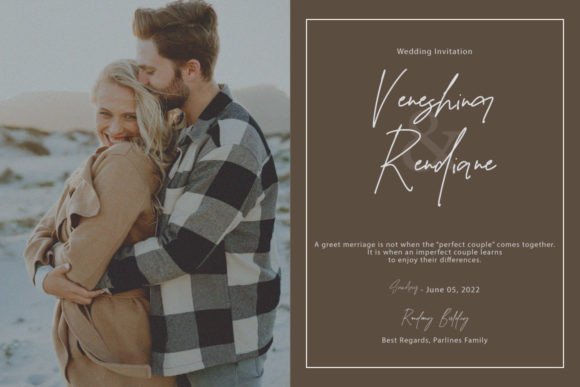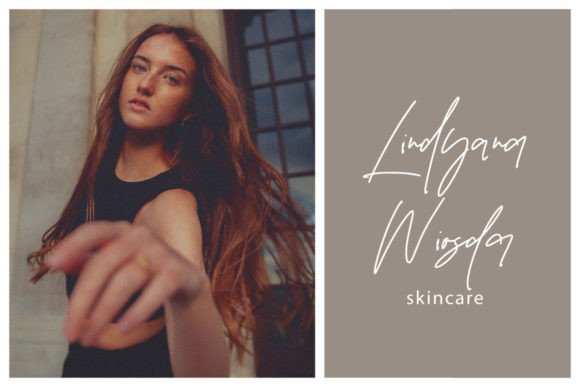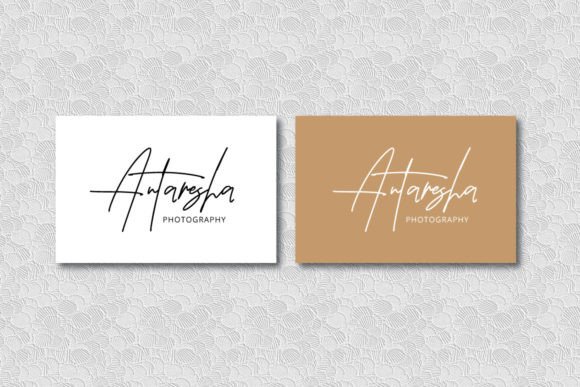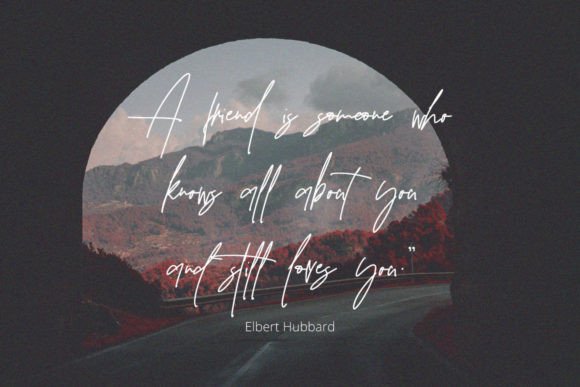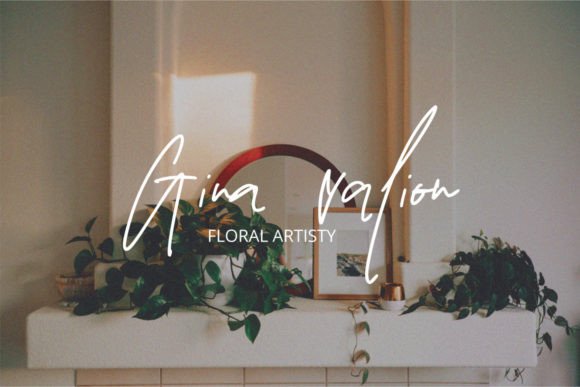
Introduction to Ridgent Font
Have you ever stared at a blank canvas, feeling the pressure to create something truly extraordinary? The blank page can be intimidating, but the right design resource can make all the difference. That’s where the Ridgent Font comes in – a game-changing addition to any creative project.
This exclusive handwritten font is the epitome of elegance, with refined strokes and sophisticated details that exude luxury. Whether you’re working on a high-end branding project, designing an invitation, or seeking the perfect touch for your next design venture, Ridgent Font is the perfect companion. With its PUA encoding, you can access all glyphs and swashes effortlessly, giving you the freedom to get creative and experiment with different styles.
Key Features of Ridgent Font
- High-quality design: Ridgent Font offers crisp and clear typography perfect for creative projects.
- Transparent background: This feature makes Ridgent Font a versatile design resource for various applications.
- Resolution and size: Ridgent Font supports a wide range of resolutions and sizes, ensuring it looks great on various devices and mediums.
- Unique characteristics: Ridgent Font features a distinctive and modern design, ideal for creative projects that require a touch of sophistication.
- Perfect for design projects: Ridgent Font is an excellent design resource for graphic designers, artists, and creatives working on various projects, from branding to advertising.
Honest Review: Ridgent Font
I recently had the chance to work with the Ridgent Font, and I must say it’s a high-quality addition to any design project. One of the standout features of this font is its transparent background, which makes it super versatile and easy to use. ✨
The Ridgent Font is perfect for creative projects where you need a clean and modern aesthetic. It’s also a great design resource for those who want to create professional-looking materials without breaking the bank – it’s free to download, which is a huge plus in my book!
Here are some of the things that work well with the Ridgent Font:
- High-quality design: The font is crisp and clear, making it perfect for both print and digital projects.
- Transparent background: This feature allows you to use the font on any background without worrying about it getting lost.
One thing to keep in mind is that the Ridgent Font might not be the best choice for projects that require a lot of customization. The font is a bit limited in terms of its style and flexibility, so you might find yourself wishing for more options. ⚠️
Overall, I’m really impressed with the Ridgent Font. It’s a solid choice for any design project, and its free download option makes it a no-brainer for anyone looking to add some high-quality typography to their work.
Tips for Getting the Most Out of Ridgent Font
For the best results, use Ridgent Font on a high-quality background to make the most of its transparent features. Also, experiment with different font sizes and styles to add depth and creativity to your design.
Ridgent Font is a versatile design resource, perfect for a wide range of creative projects, including logos, brochures, and social media graphics. Its high-quality features and transparent background make it ideal for designers who want to add a touch of sophistication to their designs.
Can I use the Ridgent Font with a transparent background, and are there any technical limitations?